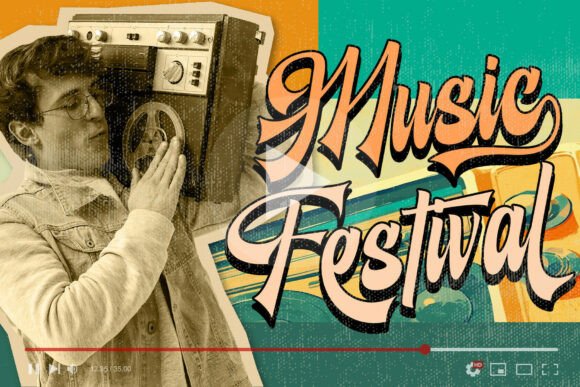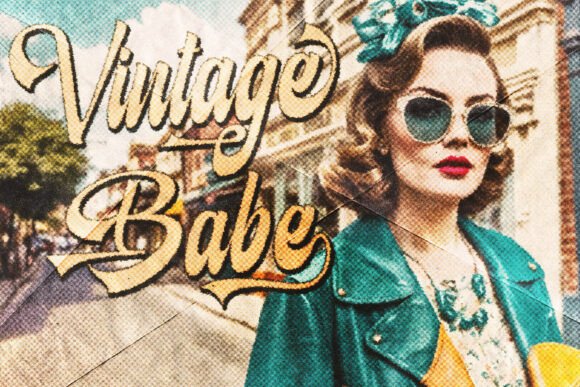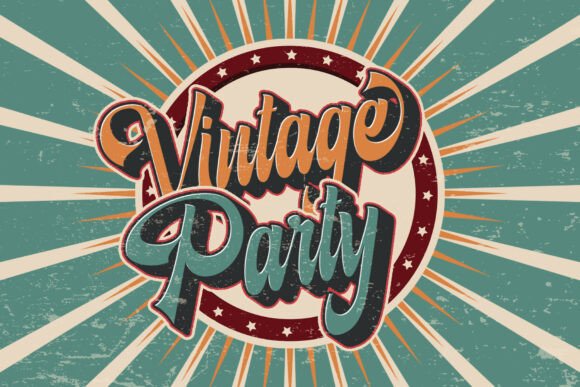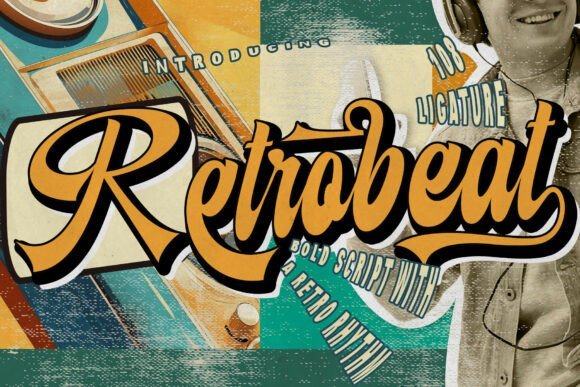
Introduction to Retrobeat Font
Introducing Retrobeat, a bold script font that brings back the vibrant rhythm of the past.
With its flowing strokes, strong curves, and groovy style, this typeface captures the true essence of retro design Perfect for posters, logos, music covers, fashion branding, and social media graphics, Retrobeat delivers a funky vibe that makes every project stand out.
Key Features of Retrobeat Font
Why Choose Retrobeat Font?